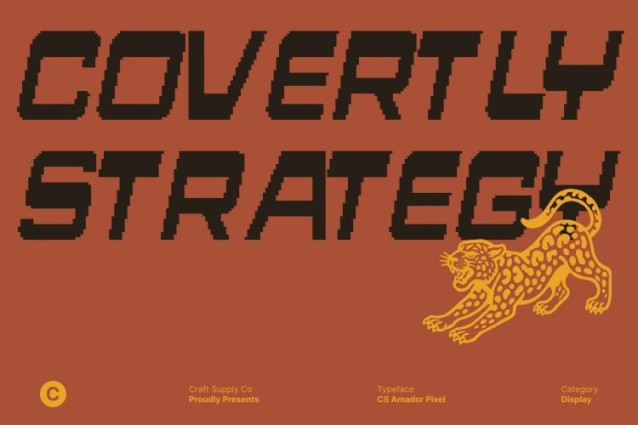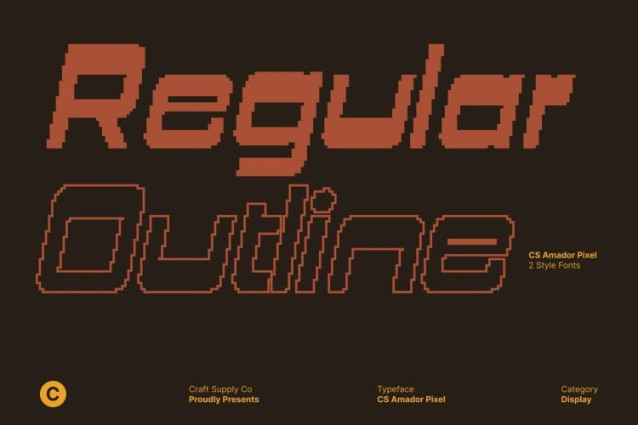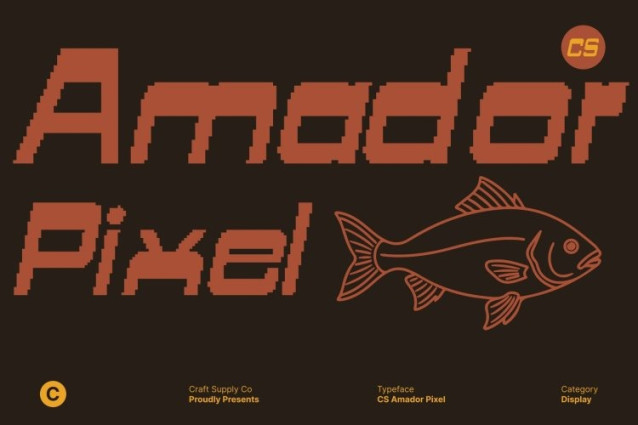
CS Amador Pixel Font
CS Amador Pixel Font This is a reverse contrast sans serif font that blends masculine strength with modern digital character. Its bold structure and pixel-inspired construction give the typeface a powerful, tech-driven presence. The reverse contrast adds a striking visual twist, while the pixel style reinforces a sharp, contemporary look rooted in digital culture.
Distinctive Geometry with Strong Personality
Built from modular, geometric forms, this font delivers a confident and assertive personality. The pixel detailing creates a rhythmic, blocky texture that feels engineered and intentional. Strong vertical strokes and unconventional proportions enhance its industrial attitude, resulting in a typeface that feels bold, daring, and unmistakably modern.
Modern Digital Expression for Bold Visual Impact
This font transforms classic sans serif foundations into something fresh and unconventional. Its masculine tone, combined with digital pixel styling, makes it perfect for designs that aim to feel innovative, powerful, and forward-looking. The font stands out effortlessly, turning headlines and logotypes into strong visual statements.
Perfect for Branding, Posters, and Contemporary Media
Designed for modern creative projects, this font excels in branding, posters, editorial layouts, and digital campaigns. It works especially well for fashion, technology, gaming, and urban-themed designs. With its bold presence and pixel-driven edge, this font ensures every message feels confident, modern, and visually unforgettable.